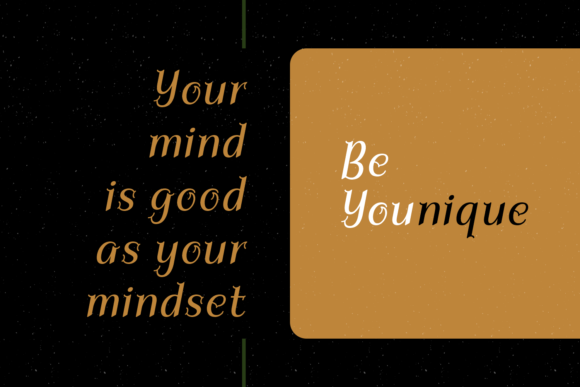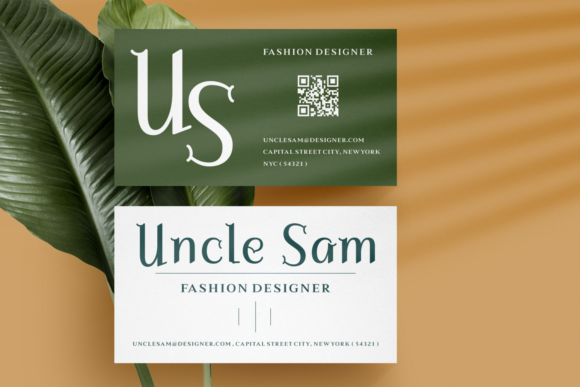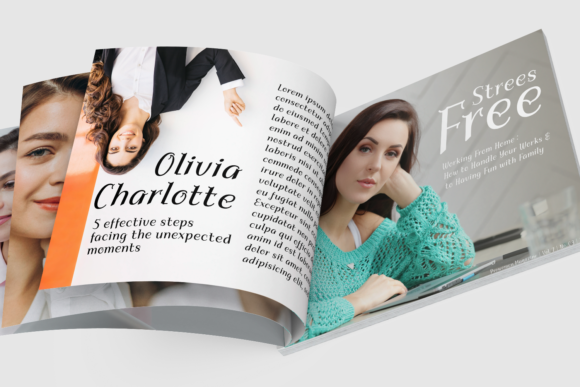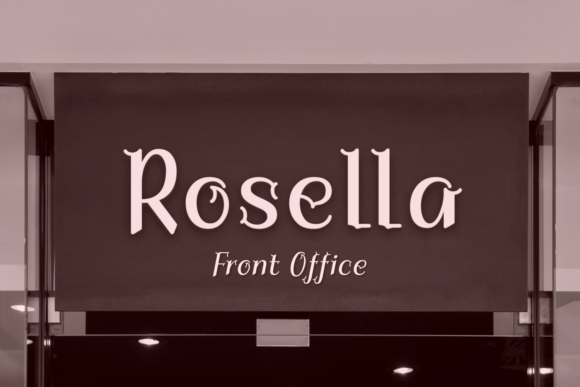
Aku & Fantiers Font: Elevate Your Creativity with Elegance and Charm
Are you a designer, crafter, or creative enthusiast looking for a font that exudes both charm and elegance? Look no further than Aku & Fantiers Font! This stunning script font is perfect for a wide range of creative projects, from Instagram posts to DIY crafts, and is sure to turn your ideas into true works of art.
The Perfect Blend of Charm and Elegance
Aku & Fantiers Font is a masterful blend of charm and elegance, making it the perfect choice for anyone looking to add a touch of sophistication to their creative projects. With its flowing script and intricate details, this font is sure to captivate your audience and leave a lasting impression.
Whether you’re designing for digital or print, Aku & Fantiers Font is the perfect choice. Its versatility and flexibility make it suitable for a wide range of applications, from social media graphics to invitations, and from DIY crafts to professional branding.
With Aku & Fantiers Font, the creative possibilities are endless! Here are just a few ideas to get you started:
- Instagram Graphics: Take your Instagram game to the next level with Aku & Fantiers Font. Use it to create stunning graphics, quotes, and stories that will engage and inspire your followers.
- DIY Crafts: Add a touch of elegance to your DIY crafts with Aku & Fantiers Font. Use it to create beautiful calligraphy, decorate your journals, or add a personal touch to your handmade cards.
- Branding and Marketing: Use Aku & Fantiers Font to elevate your brand and create a lasting impression. Its elegant and charming design makes it perfect for logos, business cards, and marketing materials.
Why Choose Aku & Fantiers Font?
So why choose Aku & Fantiers Font over other fonts? Here are just a few reasons:
- Unique and Exclusive: Aku & Fantiers Font is a unique and exclusive font that will set you apart from the crowd. Its distinctive design ensures that your creative projects will stand out and be remembered.
- Elegant and Charming: Aku & Fantiers Font exudes elegance and charm, making it perfect for creative projects that require a touch of sophistication.
- Versatile and Flexible: Aku & Fantiers Font is highly versatile and flexible, making it suitable for a wide range of applications and creative projects.
Tips and Tricks for Using Aku & Fantiers Font
Here are a few tips and tricks for getting the most out of Aku & Fantiers Font:
- Experiment with Colors: Aku & Fantiers Font looks stunning in a variety of colors. Experiment with different colors and combinations to find the one that works best for your creative project.
- Mix and Match: Don’t be afraid to mix and match Aku & Fantiers Font with other fonts. This can add visual interest and create a unique and eye-catching design.
- Pay Attention to Details: Aku & Fantiers Font is all about details. Pay attention to the intricate details and flourishes that make this font so special.
In conclusion, Aku & Fantiers Font is a must-have for designers, crafters, and creative enthusiasts. Its unique blend of charm and elegance makes it perfect for a wide range of creative projects, from Instagram graphics to DIY crafts. With its versatility, flexibility, and stunning design, Aku & Fantiers Font is sure to turn your creative ideas into true works of art!